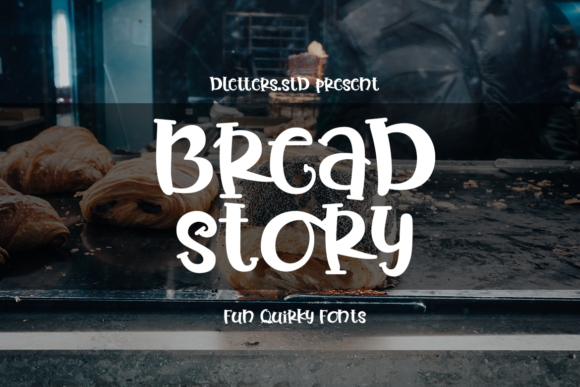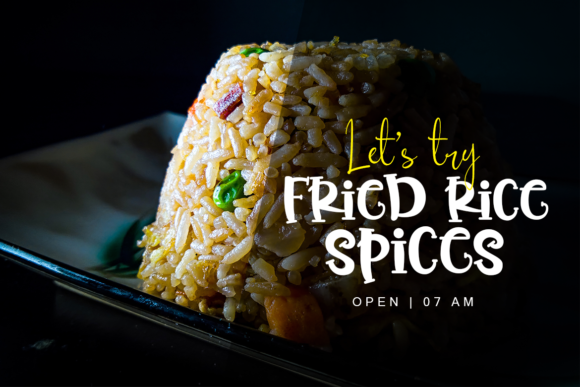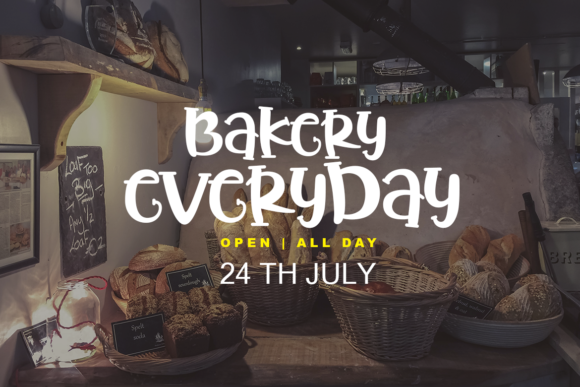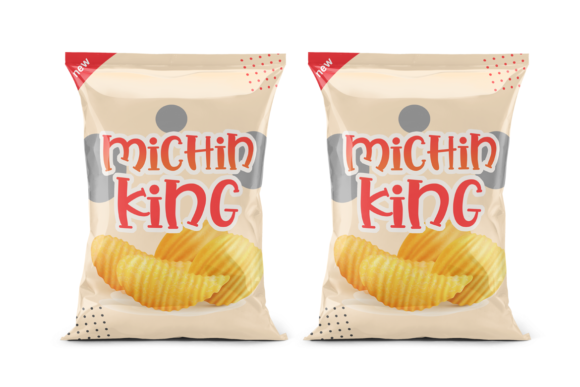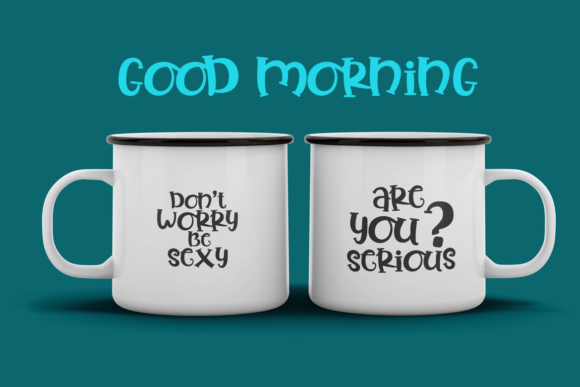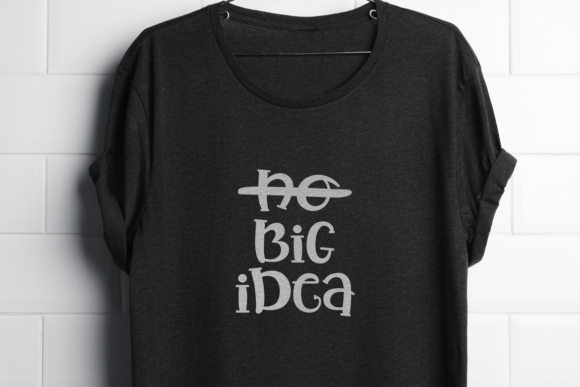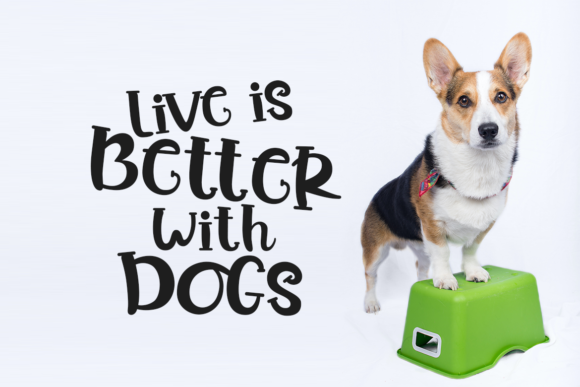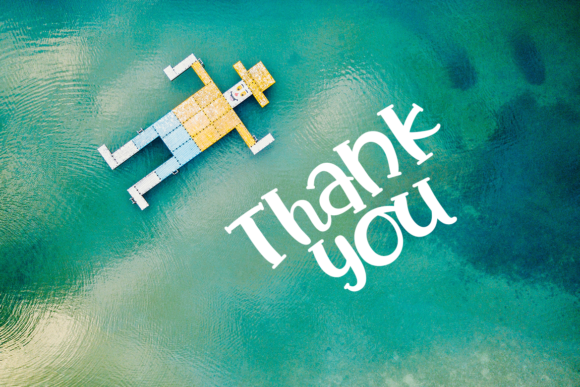
Bread Story
Bread Story: An Adorable and Quirky Slab Serif Font
Bread Story is a distinctive slab serif font that combines adorable design with quirky charm. This playful typeface offers designers a delightful tool for creating joyful and eye-catching typography across various creative projects.
Key Features of Bread Story
• Adorable Design: Features a cute and endearing appearance
• Quirky Character: Incorporates unique and unconventional elements for added personality
• Slab Serif Structure: Maintains the characteristic thick, rectangular serifs typical of slab serif fonts
• Joyful Touch: Designed to add an incredibly cheerful element to designs
• Playful Style: Offers a fun and engaging aesthetic
• Versatile Application: Suitable for a variety of creative projects
Ideal Uses for Bread Story
Bread Story’s unique characteristics make it particularly well-suited for:
• Beautiful stationery art
• Eye-catching social media posts
• Cheerful branding and logo design
• Children’s book typography
• Playful packaging design
• Fun greeting cards and invitations
When incorporating Bread Story into your designs, consider the following tips:
• Use for headlines or short blocks of text to maximize its adorable impact
• Experiment with different sizes to highlight the font’s quirky details
• Utilize its joyful nature in projects where you want to convey fun and cheerfulness
Bread Story is an excellent choice for designers looking to add an adorable and quirky slab serif to their typographic toolkit. Its playful style and joyful character make it stand out in the world of typography. Whether you’re working on stationery art, creating eye-catching social media posts, or developing branding for fun and approachable projects, Bread Story offers the perfect blend of cuteness and quirkiness.
Fall in love with Bread Story’s playful style and explore how it can bring an adorable and joyful edge to your design projects. From charming stationery to engaging social media content, this font provides the tools to create impactful and memorable typography that stands out with its unique blend of adorableness and quirkiness.